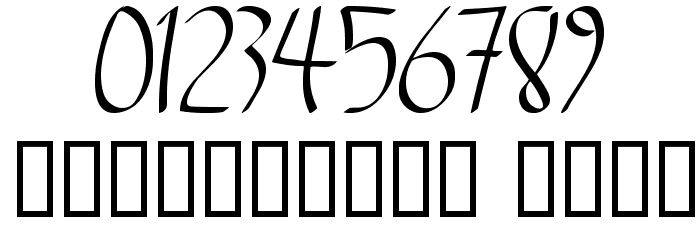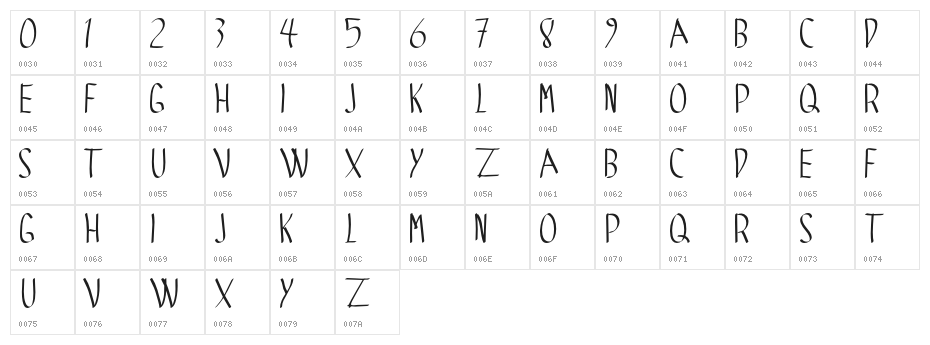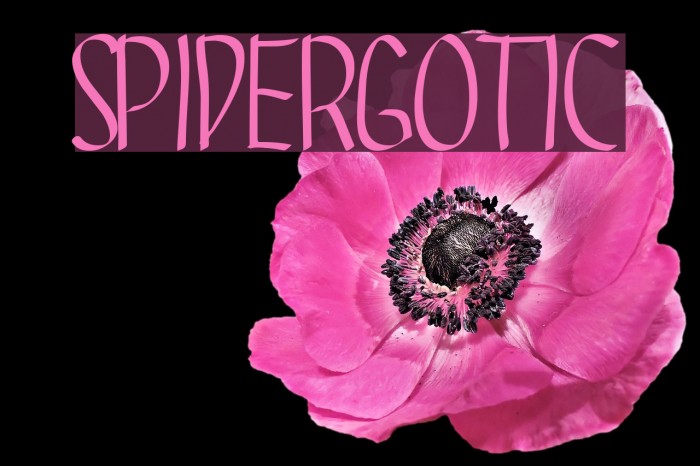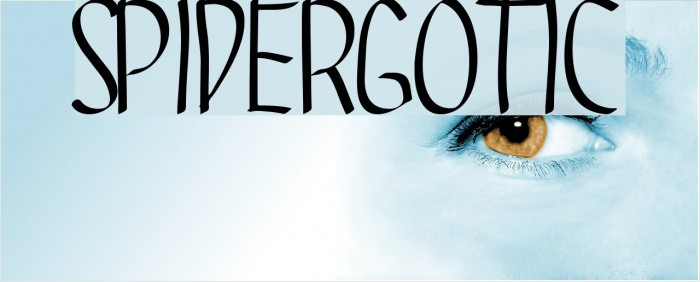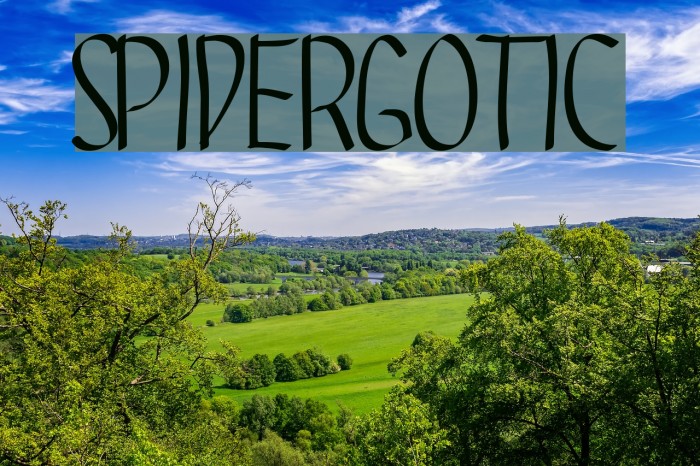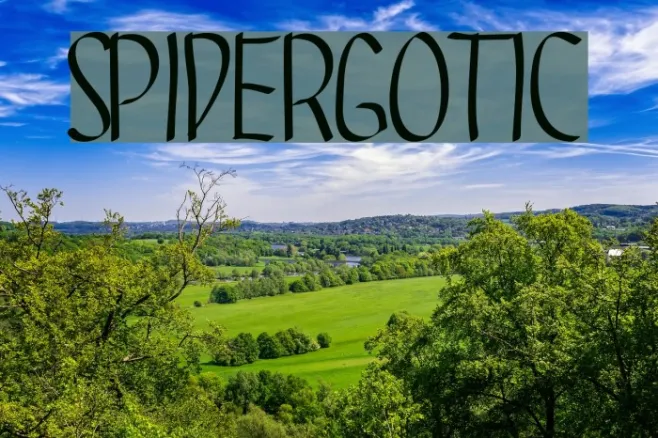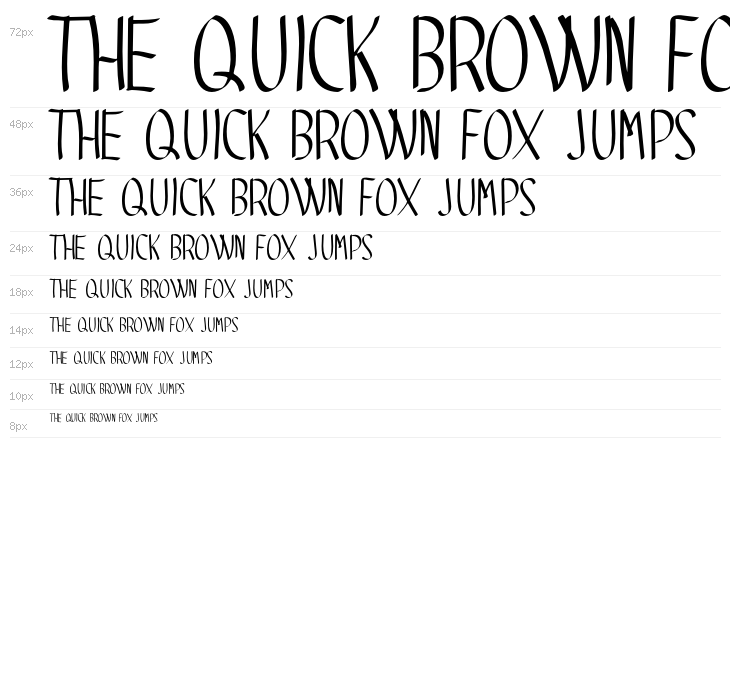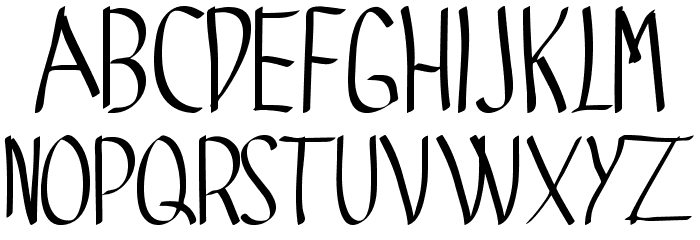
SPIDERGOTIC Font
SPIDERGOTIC Description
This font features a unique, hand-drawn style with elongated, slightly irregular strokes that give it a whimsical and artistic appearance. The uppercase and lowercase letters share a consistent design, with a playful yet sophisticated look. The numerals are distinct and maintain the same artistic flair, making them easily recognizable. The special characters are creatively integrated, adding to the font's overall charm. This font's design is reminiscent of a modern gothic style, with a touch of elegance and creativity, making it suitable for various artistic and decorative applications.
SPIDERGOTIC UPPERCASE
SPIDERGOTIC LOWERCASE
SPIDERGOTIC OTHER CHARS
| Overall Style | Modern Gothic |
| Use Case | Headlines, Logos, Artistic Designs |
| Proposed Projects | Ideal for creative projects such as posters, invitations, branding, and artistic designs where a unique and playful touch is desired. |